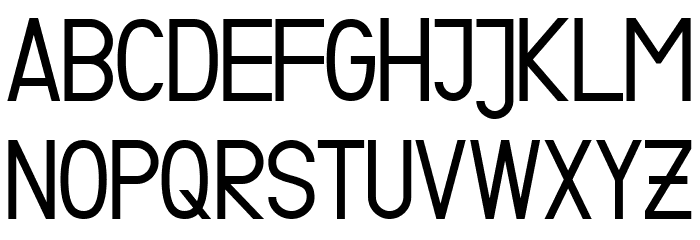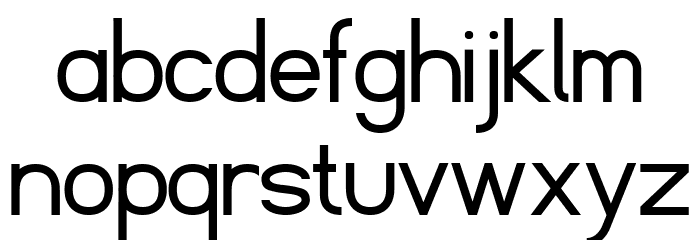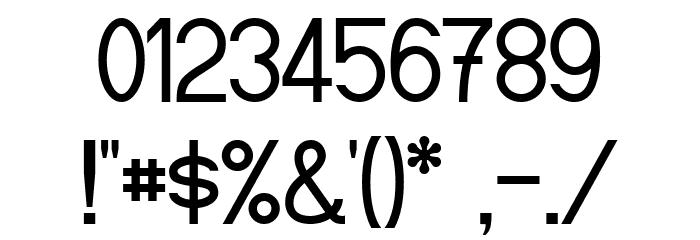
Fibel Sued Font
This font features a clean and modern sans-serif style with a geometric structure. The characters are well-balanced with uniform stroke widths, giving it a sleek and contemporary appearance. The uppercase letters are bold and assertive, while the lowercase letters maintain a consistent flow. The numerals are clear and legible, making them suitable for various applications. Special characters are designed with simplicity and clarity in mind, ensuring they complement the overall aesthetic. The font's design is versatile, making it ideal for both digital and print media.